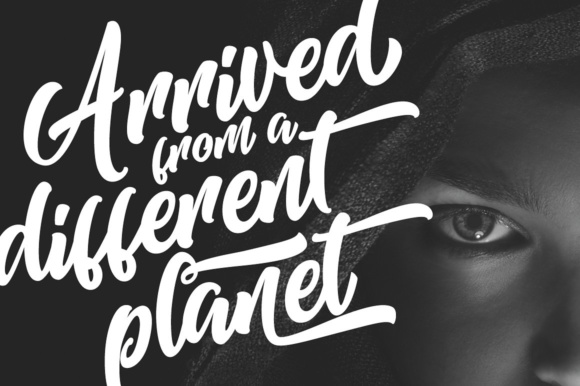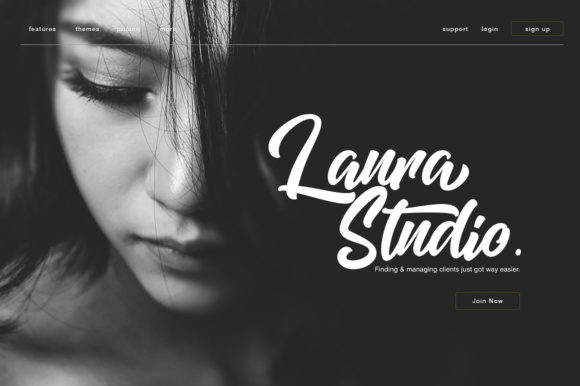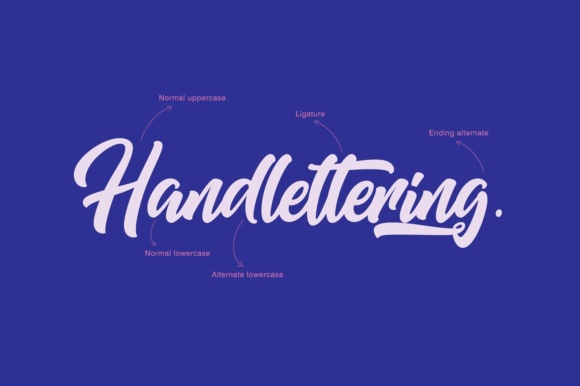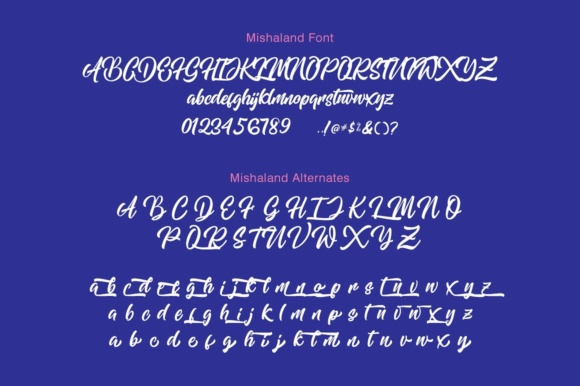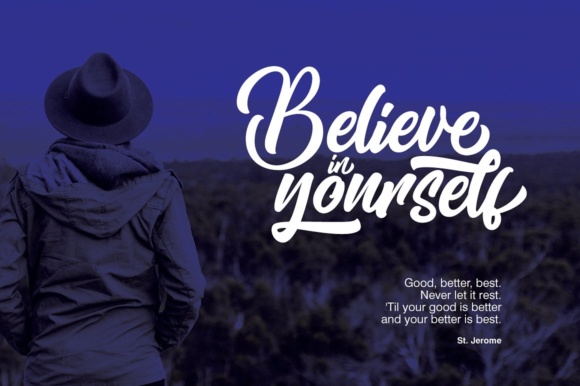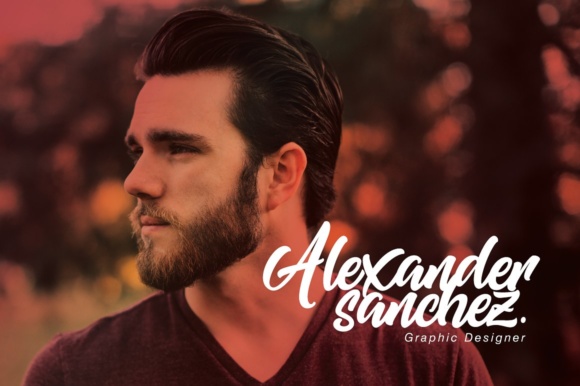
Introduction to Mishaland Font
Have you ever stared at a blank canvas, eager to bring your creative vision to life, only to feel stuck by the lack of the perfect font? It’s a feeling we’ve all been there, designers and artists alike. But what if I told you that there’s a game-changing solution waiting for you? Enter the Mishaland Font, a modern script typeface designed to make your designs stand out and leave a lasting impression.
As a valuable resource for designers, the Mishaland Font is more than just a pretty face. Its bold, striking letters are crafted to elevate your creative project to new heights. Whether you’re working on a high-quality design for a client or experimenting with a new idea, this font is sure to provide the perfect finishing touch. And the best part? It’s available for a free download, complete with a transparent background that will blend seamlessly into your design.
Key Features of Mishaland Font
- High-quality design resource ideal for creative projects, offering a unique and stylish look.
- Designed to be highly legible and versatile, making it suitable for a wide range of creative projects, from posters to digital designs.
- Includes a comprehensive character set, covering a wide range of languages, making it a valuable resource for designers worldwide.
Honest Review: Mishaland Font
I recently had the chance to work with the Mishaland Font, and I must say it’s a great addition to any design resource library. The free download was a nice touch, and the transparent background made it easy to incorporate into my creative project.
- Unique and stylish design that adds a touch of elegance to any project ✨
- High quality font that renders well in various sizes and resolutions ✨
- Only a single font style is available, which may limit its versatility ⚠️
- The font may not be suitable for all types of projects, particularly those requiring a bold or condensed font ⚠️
Overall, I’m impressed with the Mishaland Font and would recommend it to designers looking for a high-quality, elegant font to add to their creative project. With a little creativity, it can be a valuable addition to any design resource library.
The Mishaland Font is ideal for a range of creative projects, including:
Blog posts and articles
Infographics and presentations
Social media graphics and posts
Marketing materials